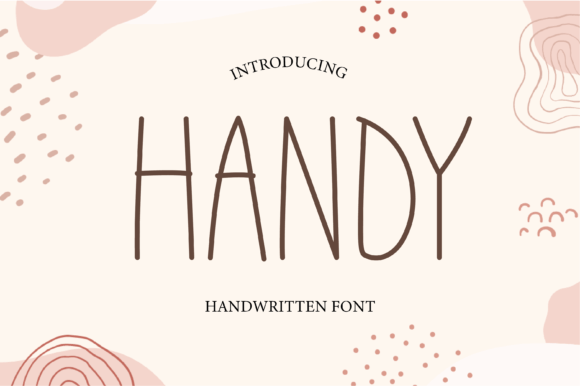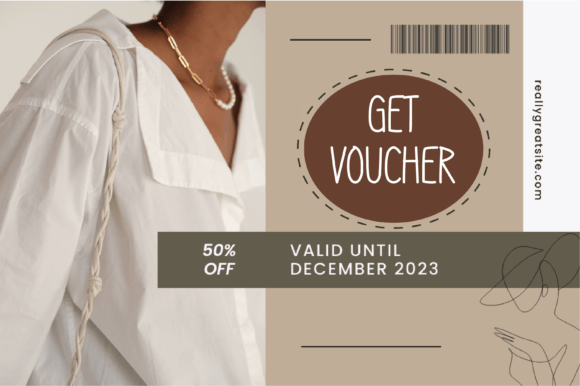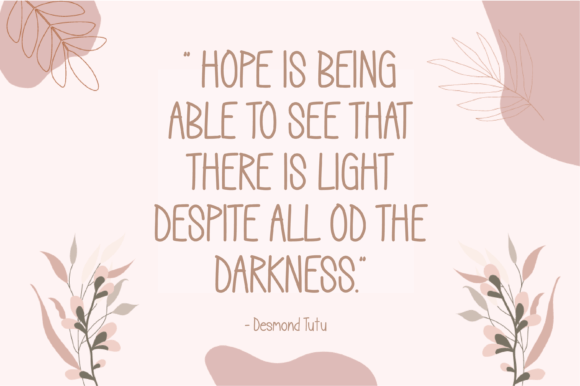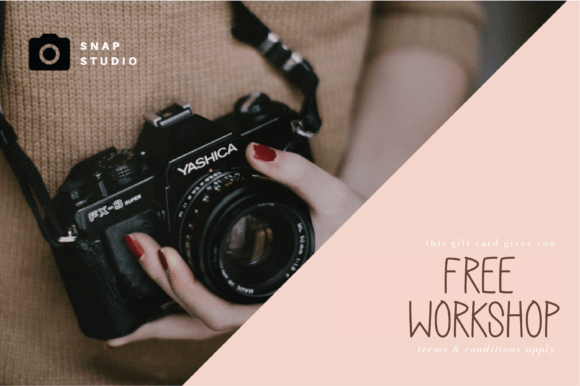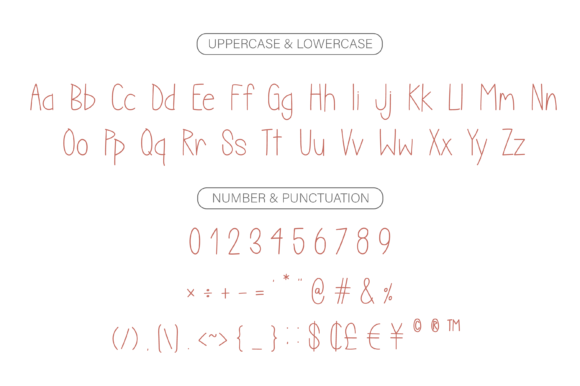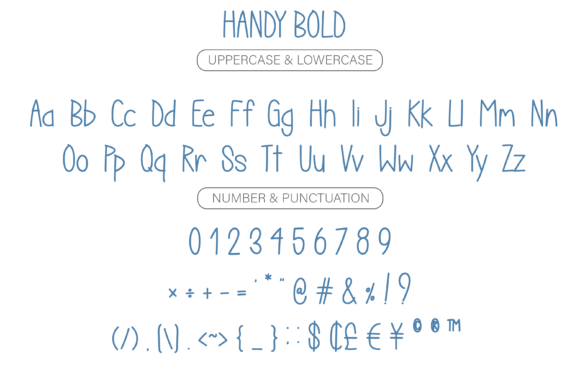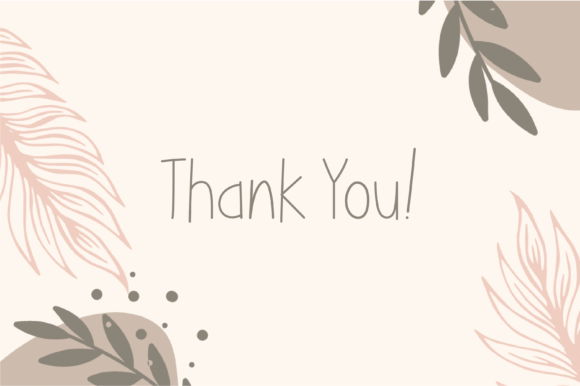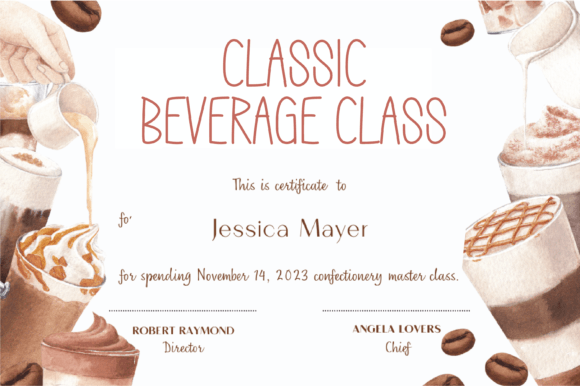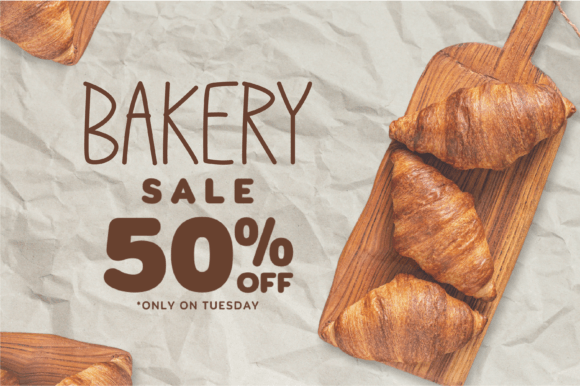
Handy Font
About Handy Font
“Handy” is a friendly handwritten font that has the power to transform any creative concept into a standout masterpiece. This cute and playful typeface is an ideal choice for adding a touch of creativity and charm to your projects, particularly school assignments and educational materials.
One of the standout features of “Handy” is its ability to infuse your text with a sense of friendliness and playfulness. The handwritten style of the font adds an approachable and authentic feel to your designs, making it perfect for projects aimed at engaging and captivating your audience.
“Handy” is versatile and can be used in various educational and creative contexts. Whether you’re working on school projects, presentations, posters, or any endeavor where a cute and playful aesthetic is desired, this font brings a sense of creativity and liveliness to your work.
Visualize using “Handy” to brighten up your school projects and how it adds a fun and friendly vibe to your content. Imagine incorporating this font into educational materials, making learning more enjoyable and relatable for students. “Handy” can be your creative companion, helping you turn your ideas into standout creations.
In conclusion, “Handy” is more than just a font; it’s a versatile design tool that brings a sense of friendliness and playfulness to your creative and educational projects. Its cute and playful handwritten style makes it an excellent choice for various applications, ensuring that your designs are both engaging and delightful. Embrace “Handy” as your go-to font for staying creative and brightening up your projects, making them truly stand out and memorable.